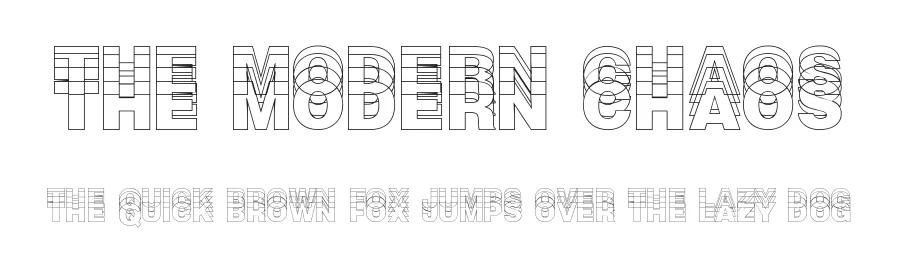
About Cerca Of Skulls Font
Cerca Of Skulls is a decorative font designed by Gersan Borge A. It includes 70 glyphs, a regular weight, TTF (TrueType) format, and 89 languages. Cerca Of Skulls is free to download; check the license details on this page before commercial use. Decorative fonts like Cerca Of Skulls work best for logos, posters, packaging, and standout headlines.
Cerca Of Skulls Font is a decorative font that shines as a display or heading face. Pair it with a clean sans-serif or serif font for body text β the contrast creates a clear hierarchy while the two styles stay balanced and easy to read.